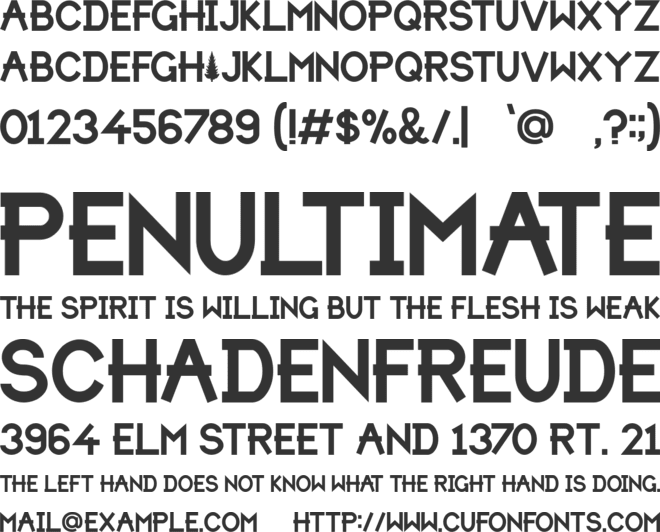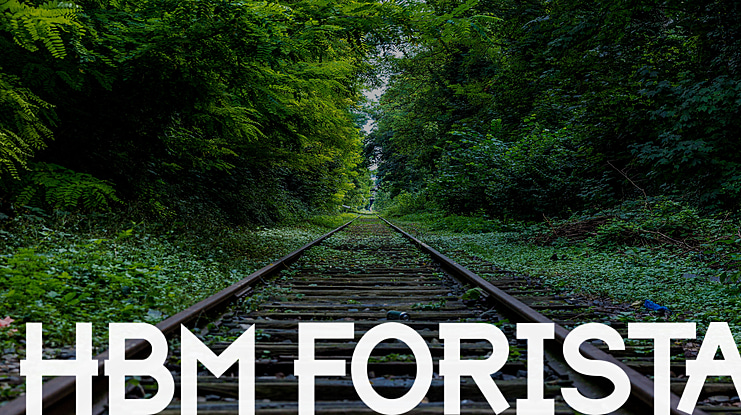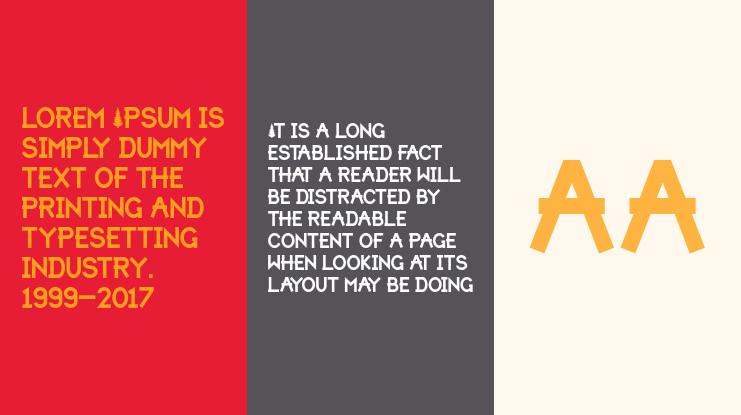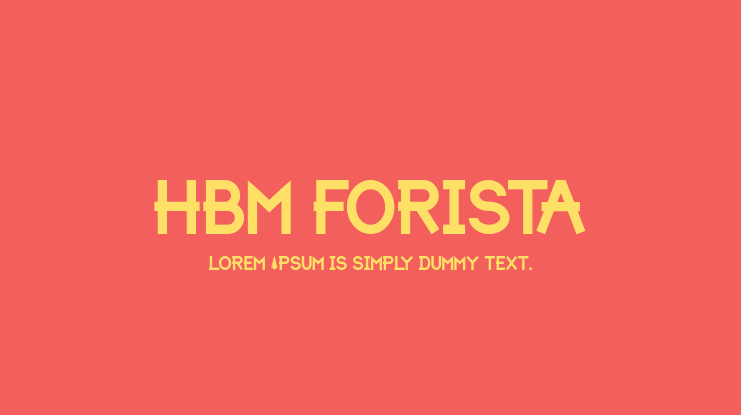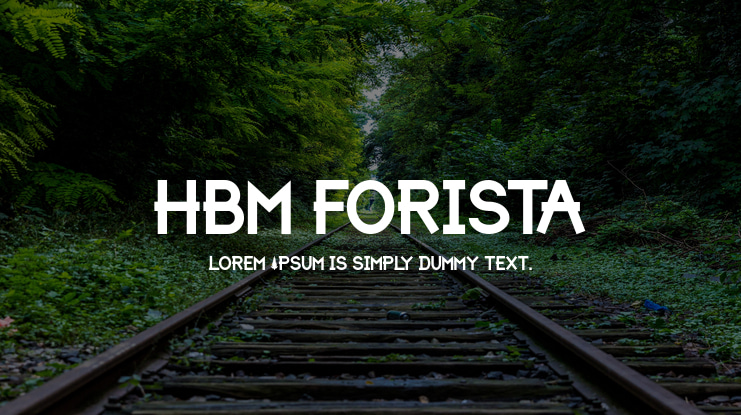
HBM Forista Font Family
FORISTA is a bold, adventurous font with a unique personality: Its all caps style, playful characters and different textures are fun and stylistic to give your project a new and fresh look. FORISTA is perfectly suited to those looking for a simple, beautiful font.